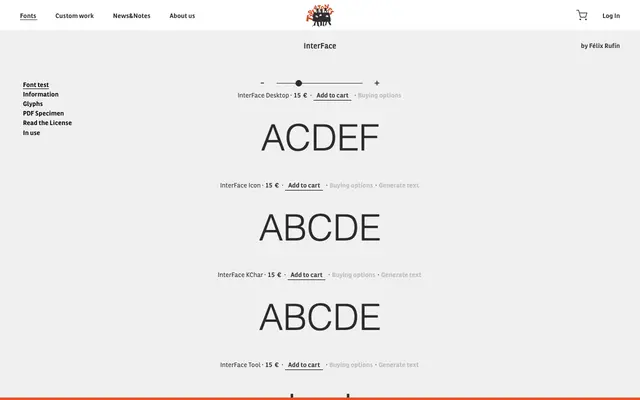
InterFace
A modular geometric sans by Félix Rufín built around interface and technical applications, sold in five distinct subfamilies.
Designed by Félix Rufín and published by Type-ø-tones, InterFace is structured as a family of five specialised cuts: Desktop, Icon, KChar, Tool and Window, each addressing a specific functional context. The all-caps specimens and the naming convention point to a system-oriented design intended for technical, screen or signage environments. The separation into discrete subfamilies allows designers to mix functional variants within a single visual system.
The all-caps specimen and modular subfamilies (Icon, Tool, Window, KChar) suggest a geometric, system-oriented sans designed for interface and technical contexts.